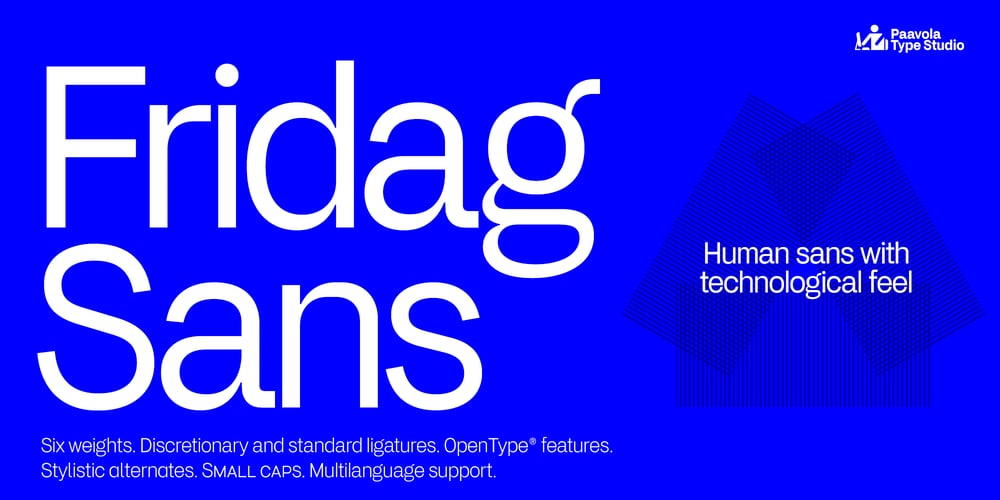
Fridag Sans Font Family was designed by Jani Paavola and published by Paavola Type Studio. Fridag Sans contains 12 styles and family package options. Fridag Sans: Technological sans with a human feel — Human sans with technological feelFridag Sans is an OpenType® sans family of six weights with Discretionary and standard ligatures Stylistic alternates — Alternate glyphs provide a broader palette of typographic possibilities beyond what’s available in the default styles. Small caps Multilanguage support — Fridag Sans supports more than 200 latin based languages